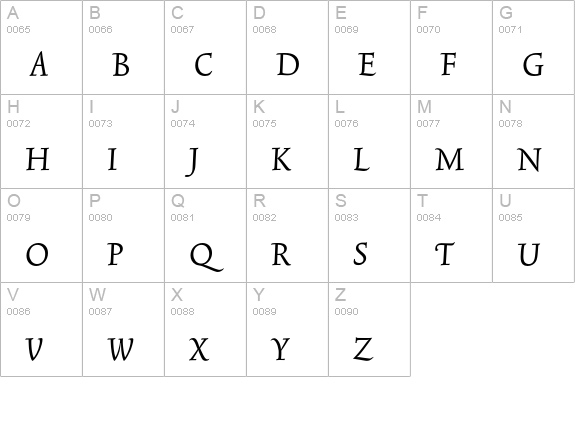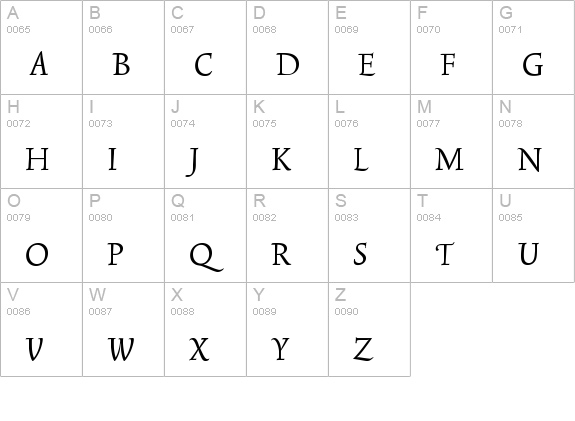
TriniteNo1-Italic is a distinctive, italic variant in the TriniteNo1 typeface family \xE2\x80\x94 well suited to design and typography projects.
Introducing TriniteNo1-Italic, a captivating and versatile font that effortlessly combines elegance with a touch of playfulness. This exquisite typeface is the perfect choice for those seeking to make a bold statement with their designs. TriniteNo1-Italic boasts a unique blend of sleek curves and refined strokes, resulting in a visually stunning display of artistry. Its italicized form adds a sense of dynamic movement, making it ideal for conveying energy and sophistication. This remarkable font is freely available to download at FontsMarket.com, where creative individuals can unlock its full potential and explore the endless possibilities it offers. Whether you're designing a logo, crafting a striking headline, or creating eye-catching marketing materials, TriniteNo1-Italic is the ultimate tool to elevate your projects to new heights. With its extensive character set and impeccable legibility, TriniteNo1-Italic ensures that your message is conveyed flawlessly, no matter the medium or size. Its meticulously designed letterforms leave a lasting impression, making it a go-to choice for professionals in various industries, from graphic design to advertising and beyond. The versatility of TriniteNo1-Italic knows no bounds, as it effortlessly adapts to any design concept or aesthetic. Whether you're aiming for a modern and minimalist look or a more whimsical and artistic feel, this font seamlessly integrates into any creative vision. Embrace the freedom of expression and allow TriniteNo1-Italic to amplify your designs with its captivating charm and undeniable sophistication. Download this remarkable font today at FontsMarket.com and unlock a world of endless creativity.